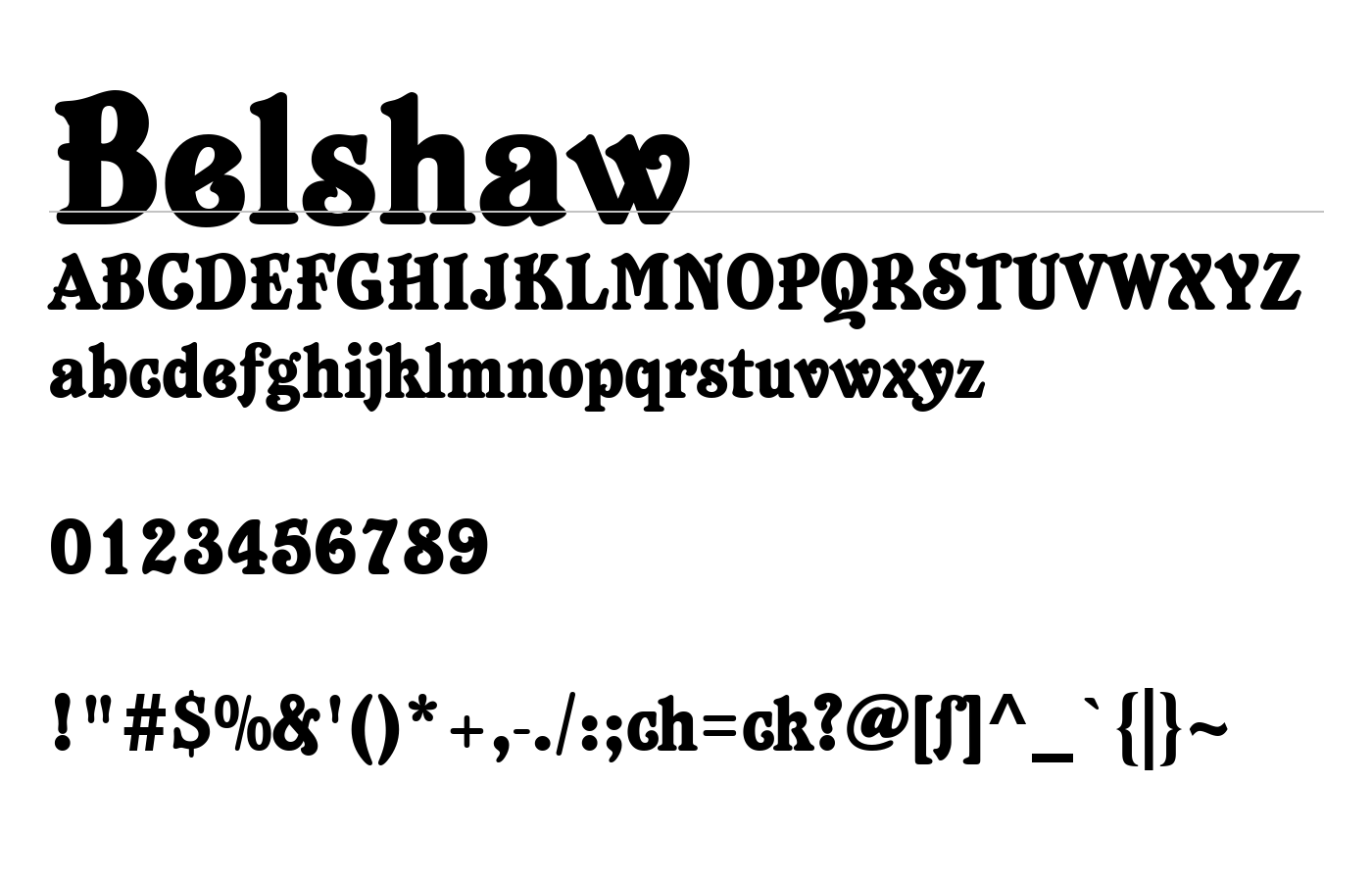
Belshaw is a bold slab serif font with a strong presence and distinct character, featuring thick, bracketed serifs and a moderate contrast between strokes. Its playful yet robust design, with unique letterforms like the ornate tail on the Q and the double-story g, gives it a vintage, almost whimsical feel that works wonderfully for headlines, logos, and branding in creative or retro-inspired projects. This font’s sturdy structure and charming details make it ideal for attention-grabbing display use while still maintaining good readability.
Belshaw Font